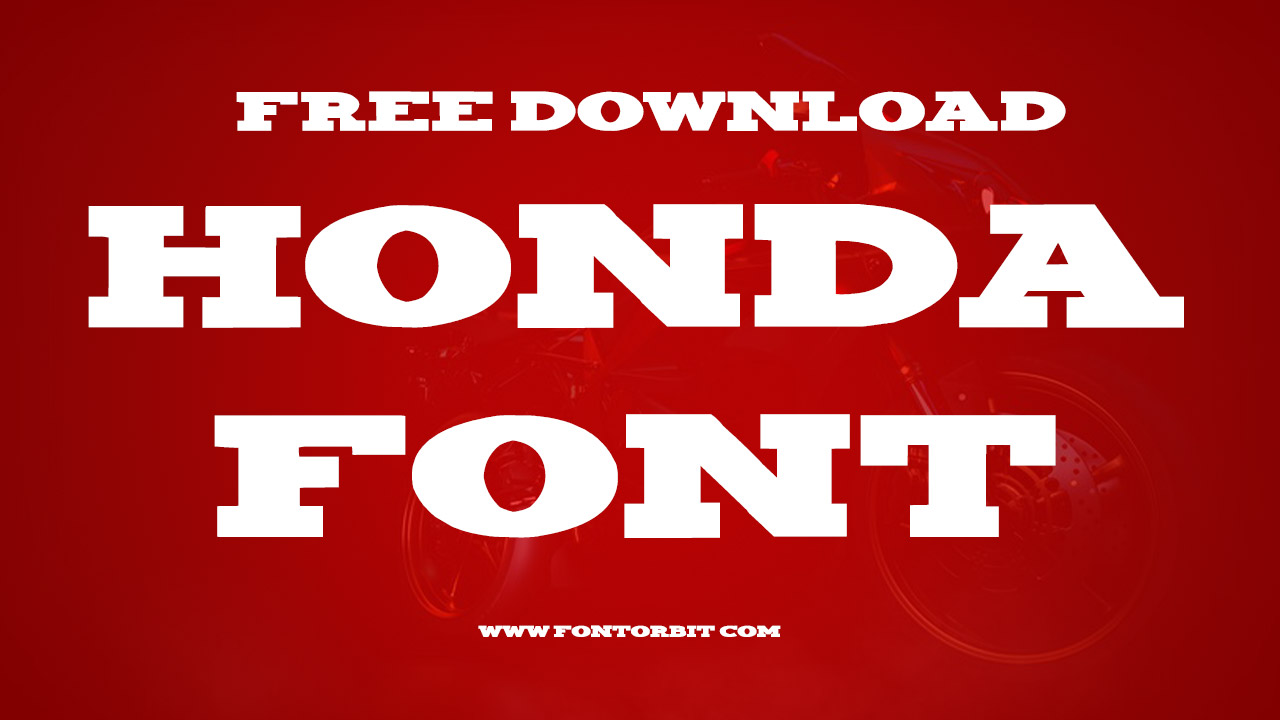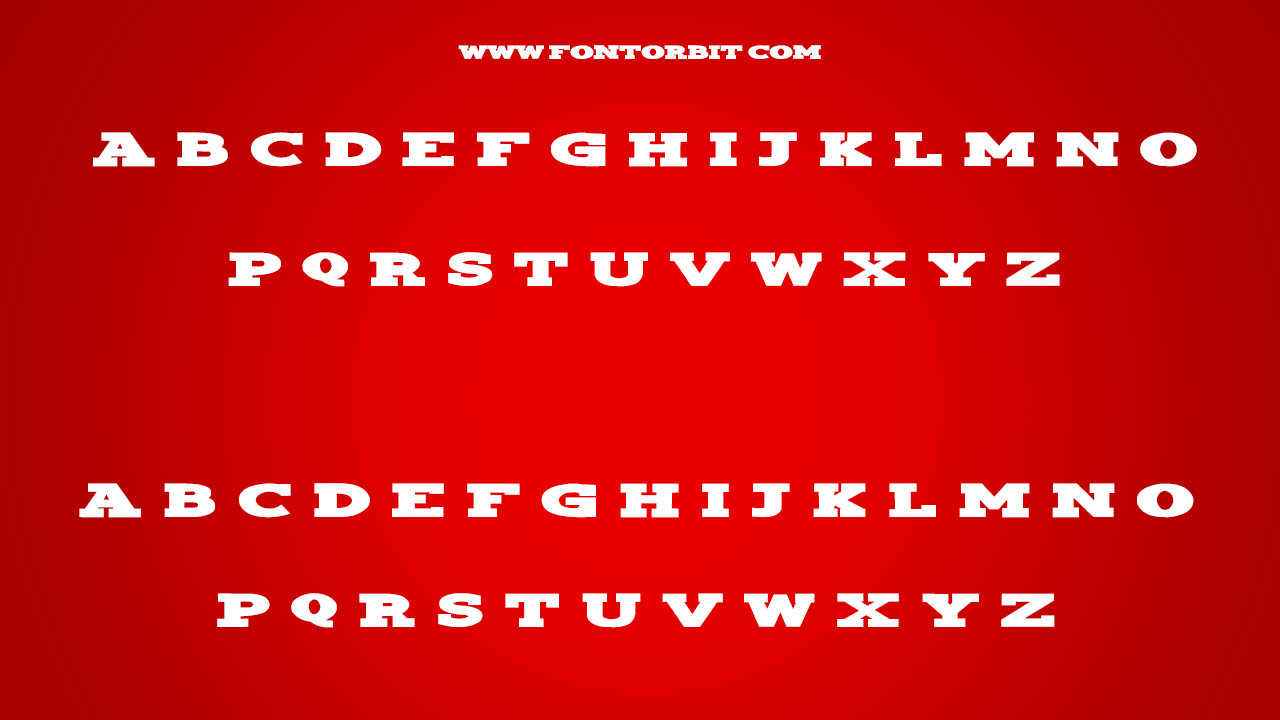
Honda Font is a distinctive typeface inspired by the Honda logo. Designed by Dennis Ludlow and published by Sharkshock, this font reflects the strong and robust style of the iconic automobile brand. It is free for personal use and captures the essence of Honda’s branding.
Types Of The Honda Font
a. Honda Regular
Its comprehensive glyph set includes clear uppercase and lowercase letters, full numbers, standard punctuation, essential symbols, and international characters.
The Honda Font is ideal for promotional materials, including automotive branding, action movie titles, and sports graphics. It’s also perfect for magazine covers, corporate presentations, and high-impact advertising campaigns, offering a robust and classic typeface that aligns with Honda’s image of reliability and strength.
2.What Are The Key Elements To Look For In A Honda Font Design?
Look for strong slab serif letterforms that convey reliability and strength, reflecting Honda’s branding style.